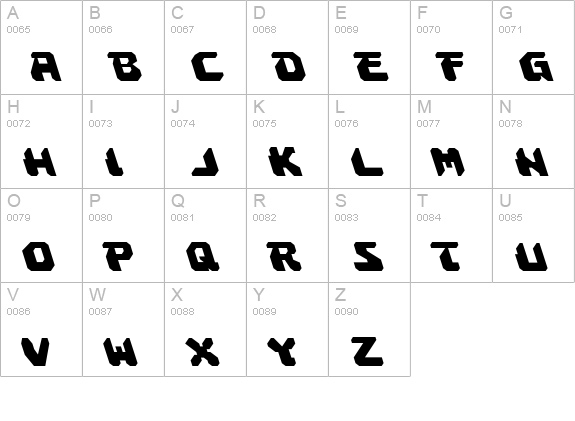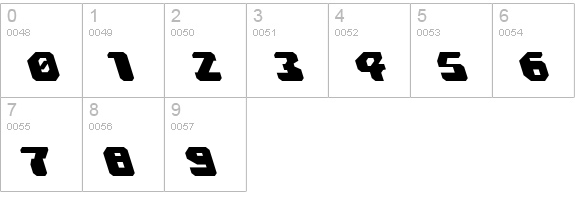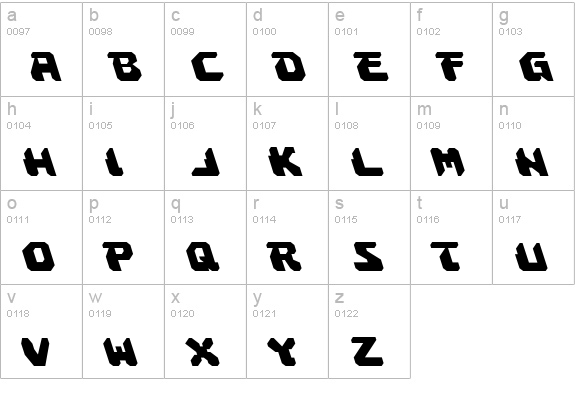
Astropolis Leftalic is a sleek and modern font that exudes sophistication and elegance. The italicized style adds a touch of flair and personality to any design project. With its clean lines and distinct look, Astropolis Leftalic is perfect for creating eye-catching headlines, logos, and branding materials. What sets Astropolis Leftalic apart is that it is available for free download at FontsMarket.com. This means you can easily access this stunning font and use it in your projects without any cost. Whether you're a graphic designer, a business owner, or a creative individual looking to elevate your work, Astropolis Leftalic is a versatile and stylish choice that will surely make a statement. Download it now and add a touch of sophistication to your designs!